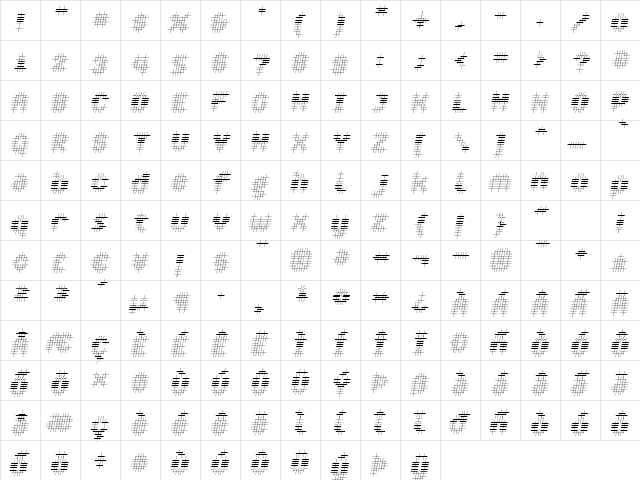
Overcross ExtraLightOblique
| Foundry | YouWorkForThem |
| Designer | Michael Cina |
Design Context for Overcross Typeface
Overcross is a composed and adaptable typeface that performs quietly and consistently across a wide range of design contexts. The slanted form adds forward momentum and visual energy. Its slender proportions lend an understated elegance to any composition.
Pro Tip: Try Overcross for annotation and caption copy alongside an upright companion — the contrast in angle creates a dynamic but ordered typographic system.